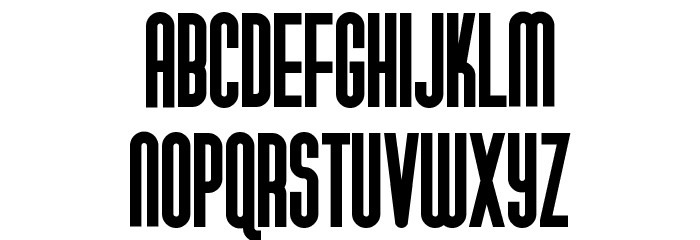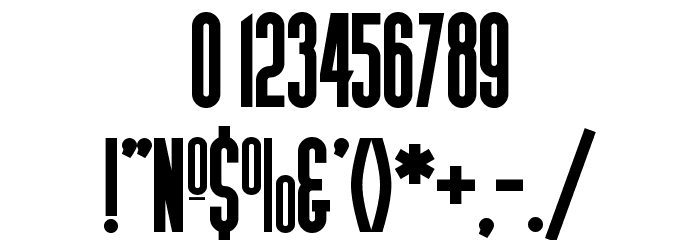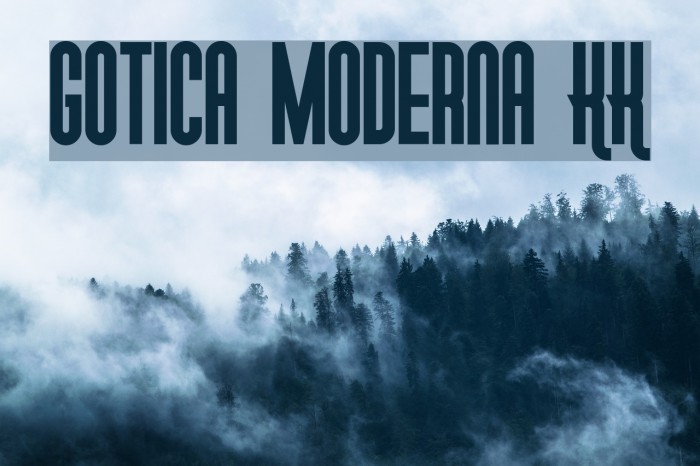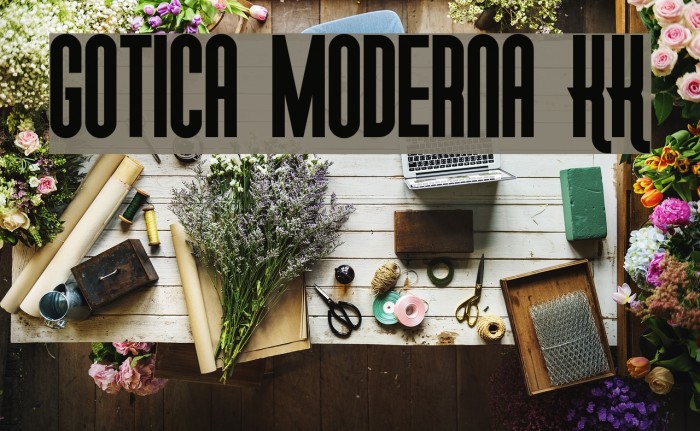
Gotica Moderna KK Font
This font features a bold and striking design with tall, narrow characters that convey a sense of modernity and strength. The uppercase letters are particularly elongated, giving the typeface a distinctive and commanding presence. The lowercase letters maintain the same vertical emphasis, ensuring consistency across text. The numerals are equally bold, matching the overall aesthetic. Special characters are designed with the same attention to detail, making them stand out. The font's geometric shapes and clean lines make it suitable for impactful headlines and branding.
A bold, modern font with tall, narrow characters and a strong geometric style.
- Proposed Projects: Ideal for use in branding, posters, and headlines where a modern and impactful look is desired.
- Character Spacing: Tight